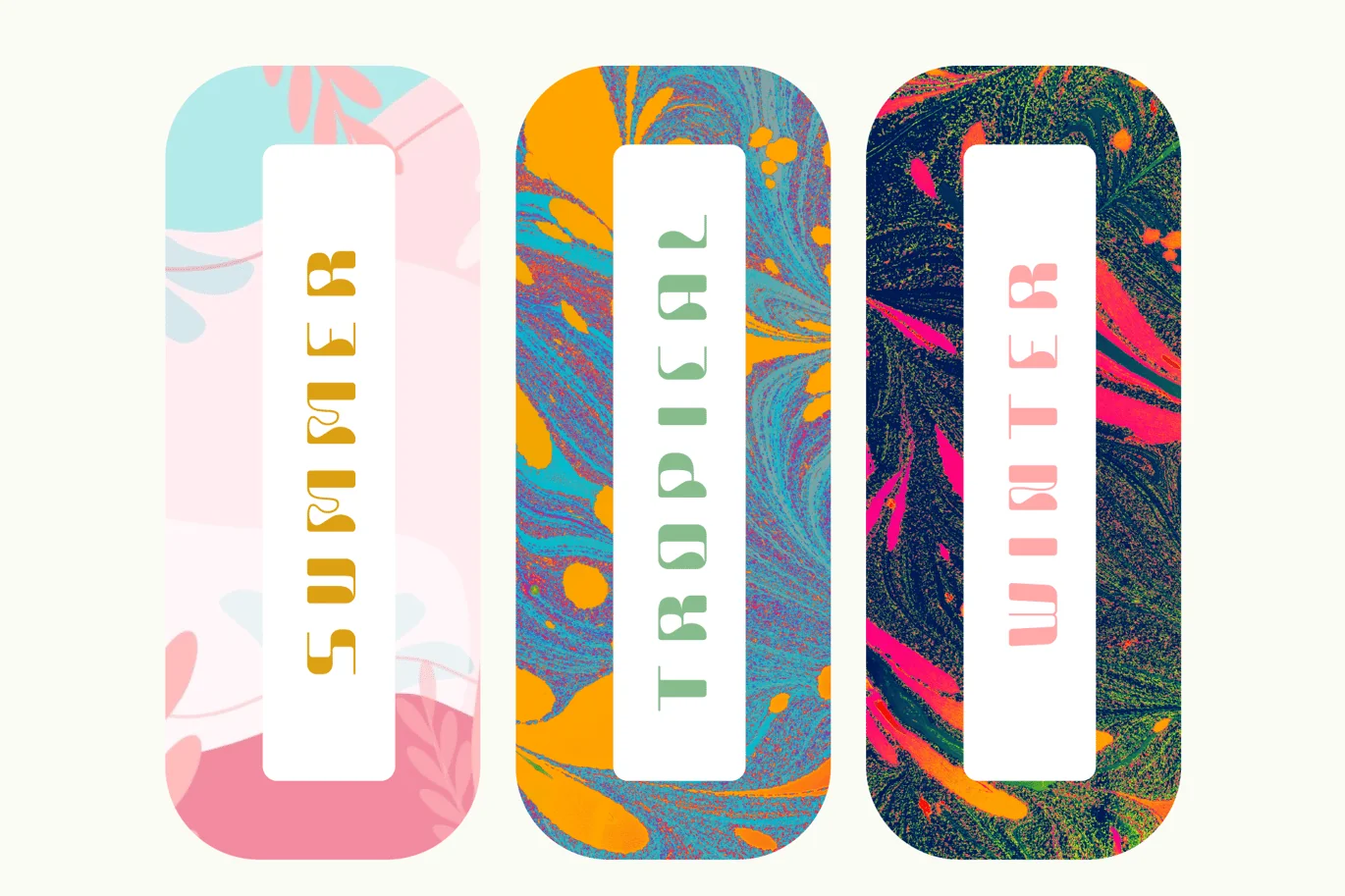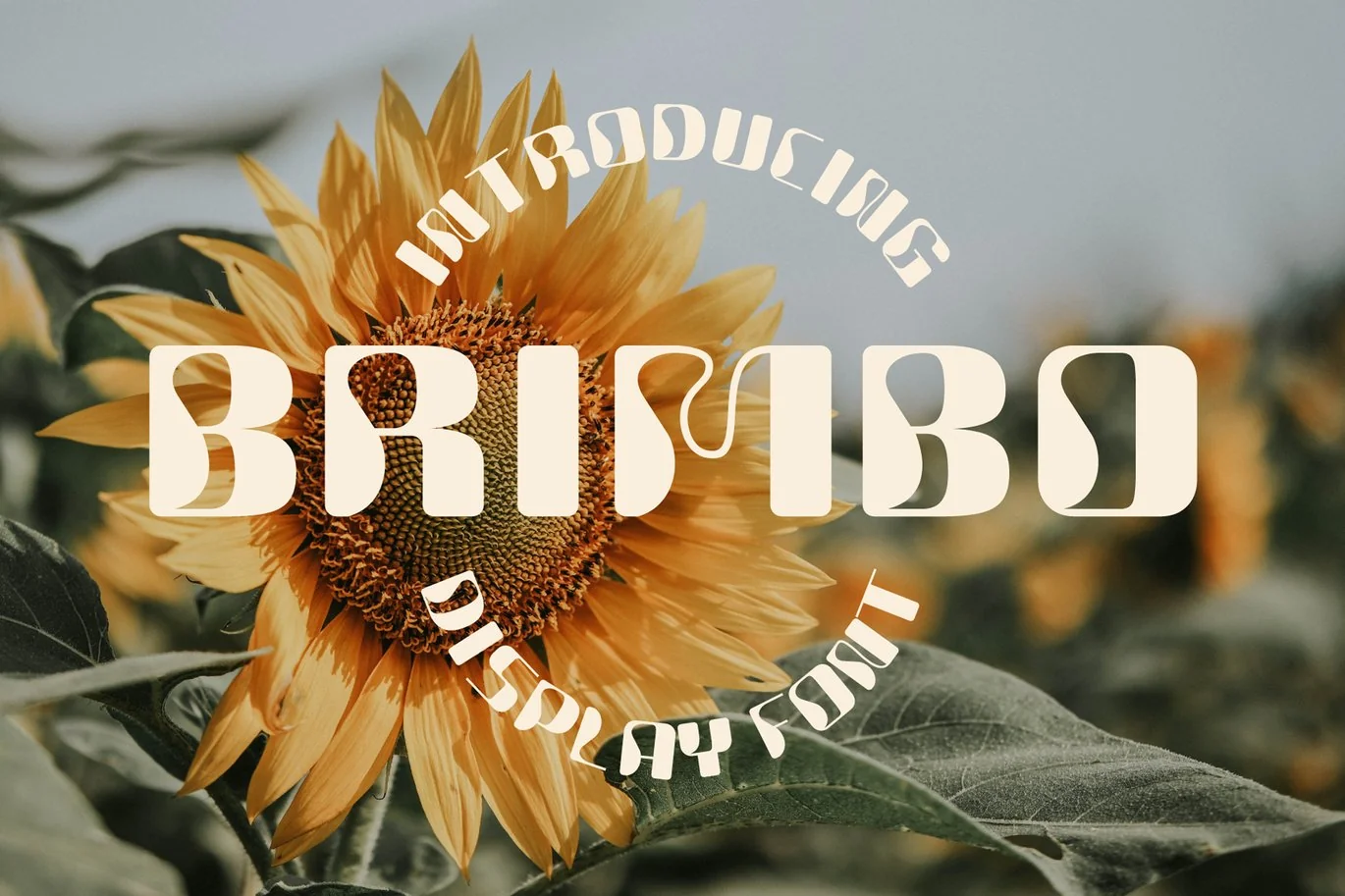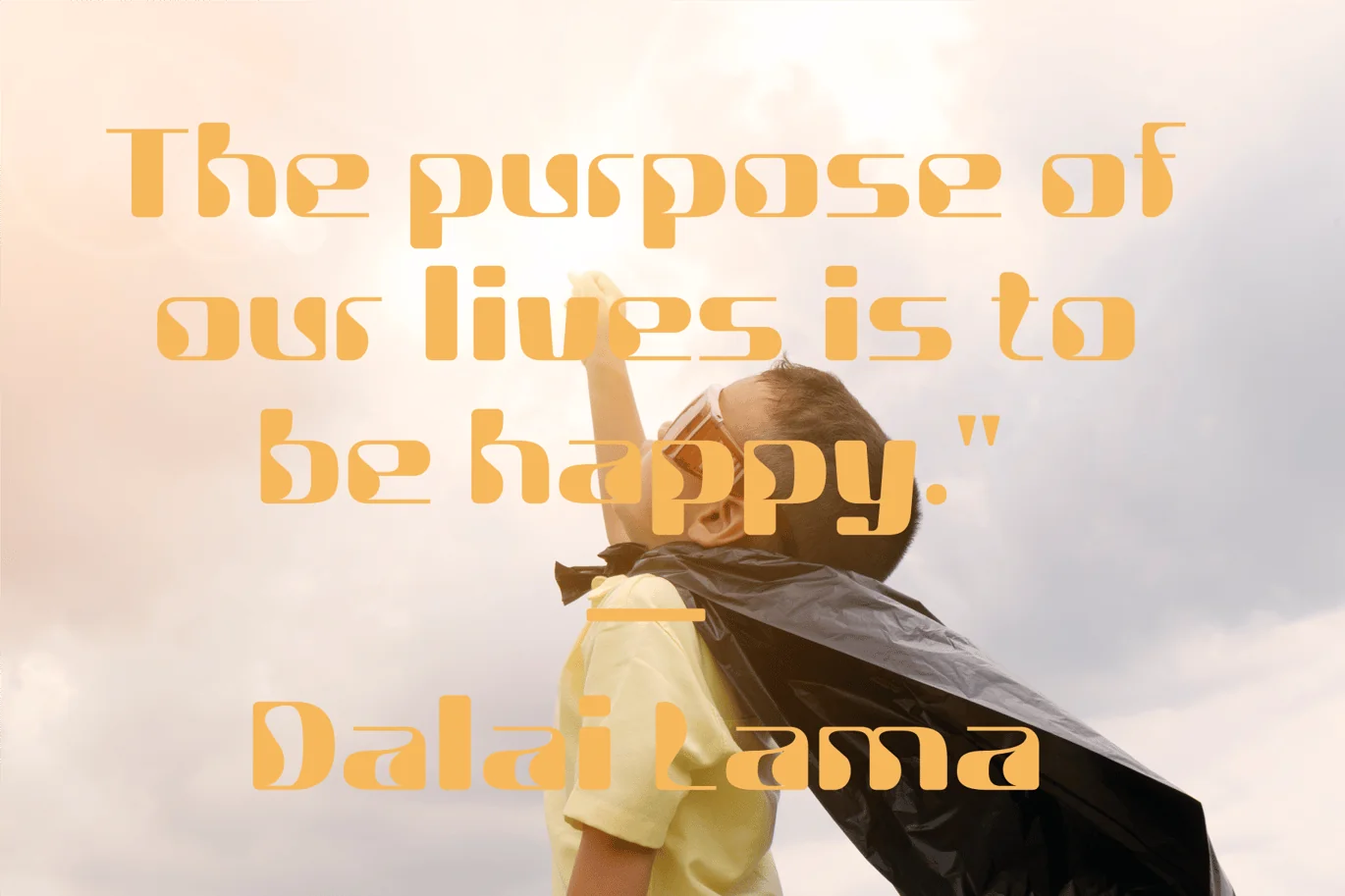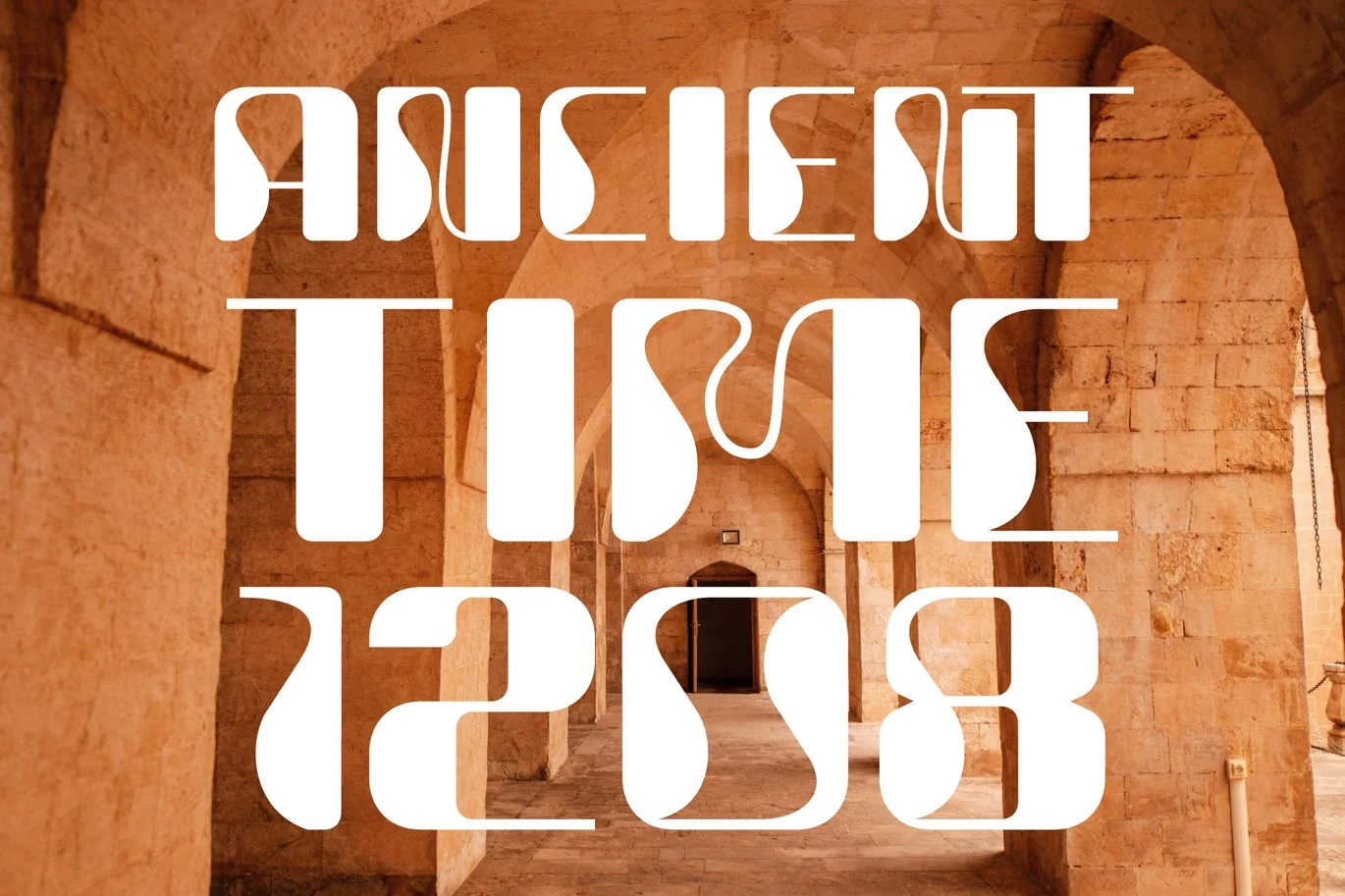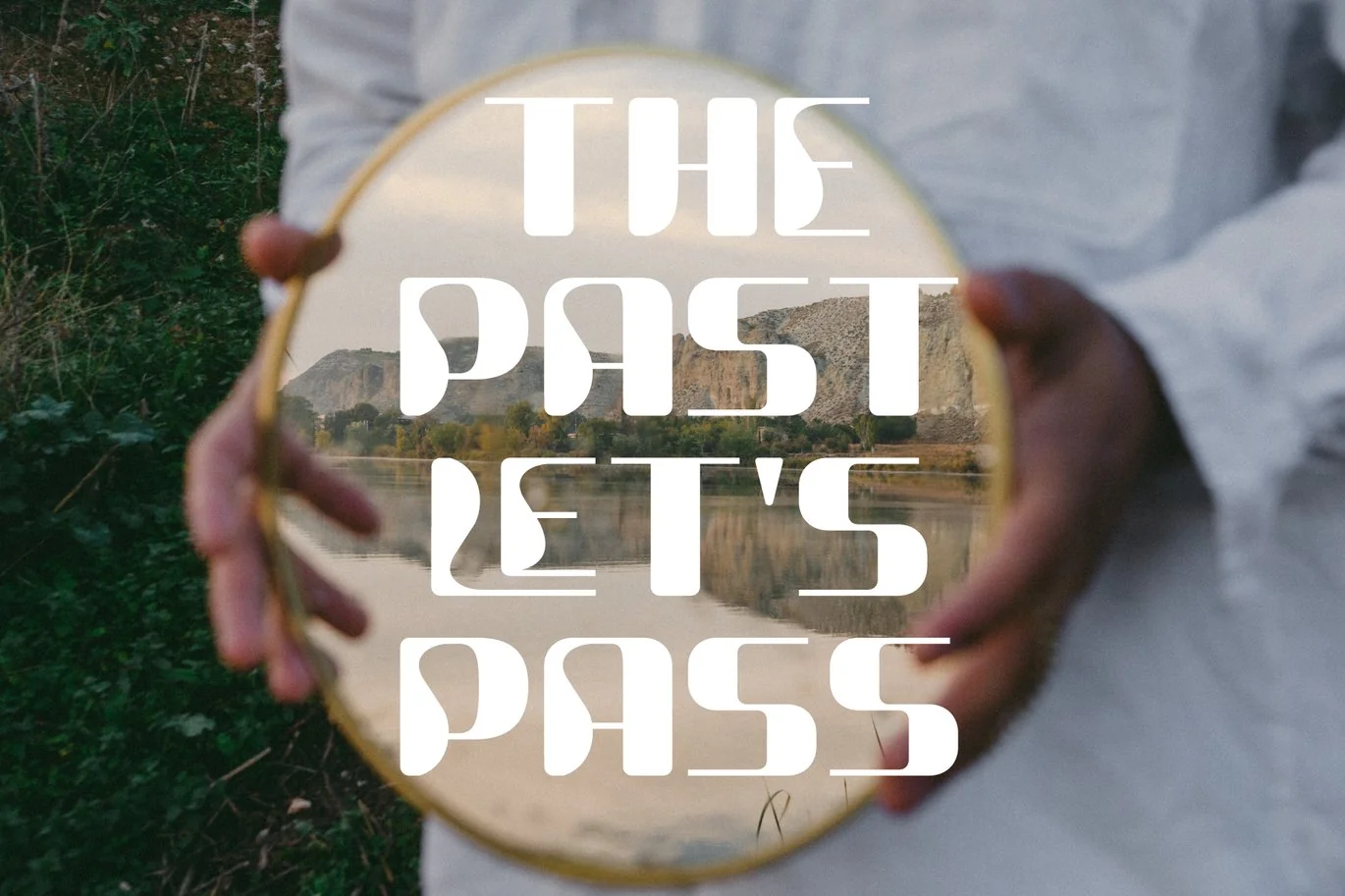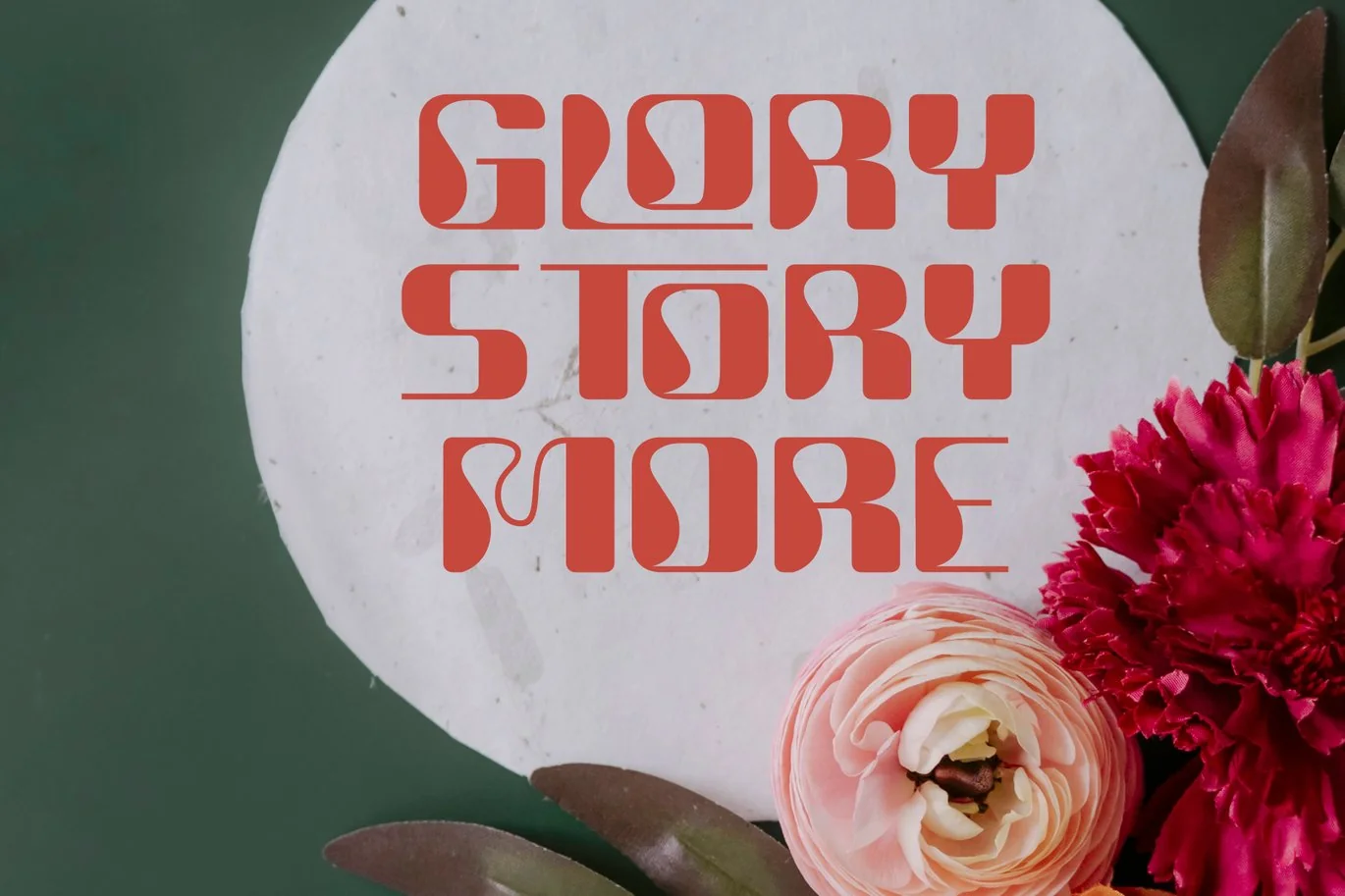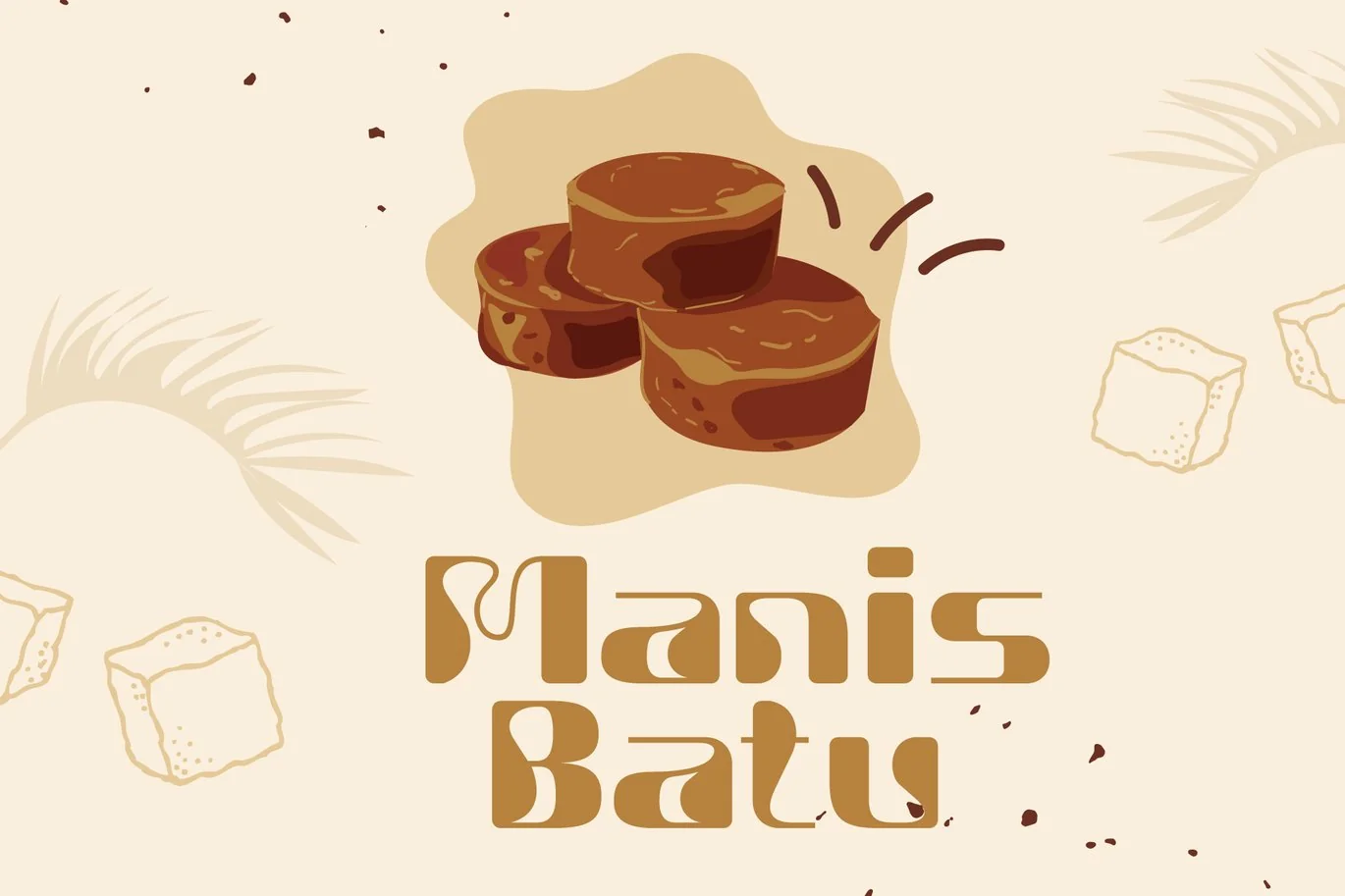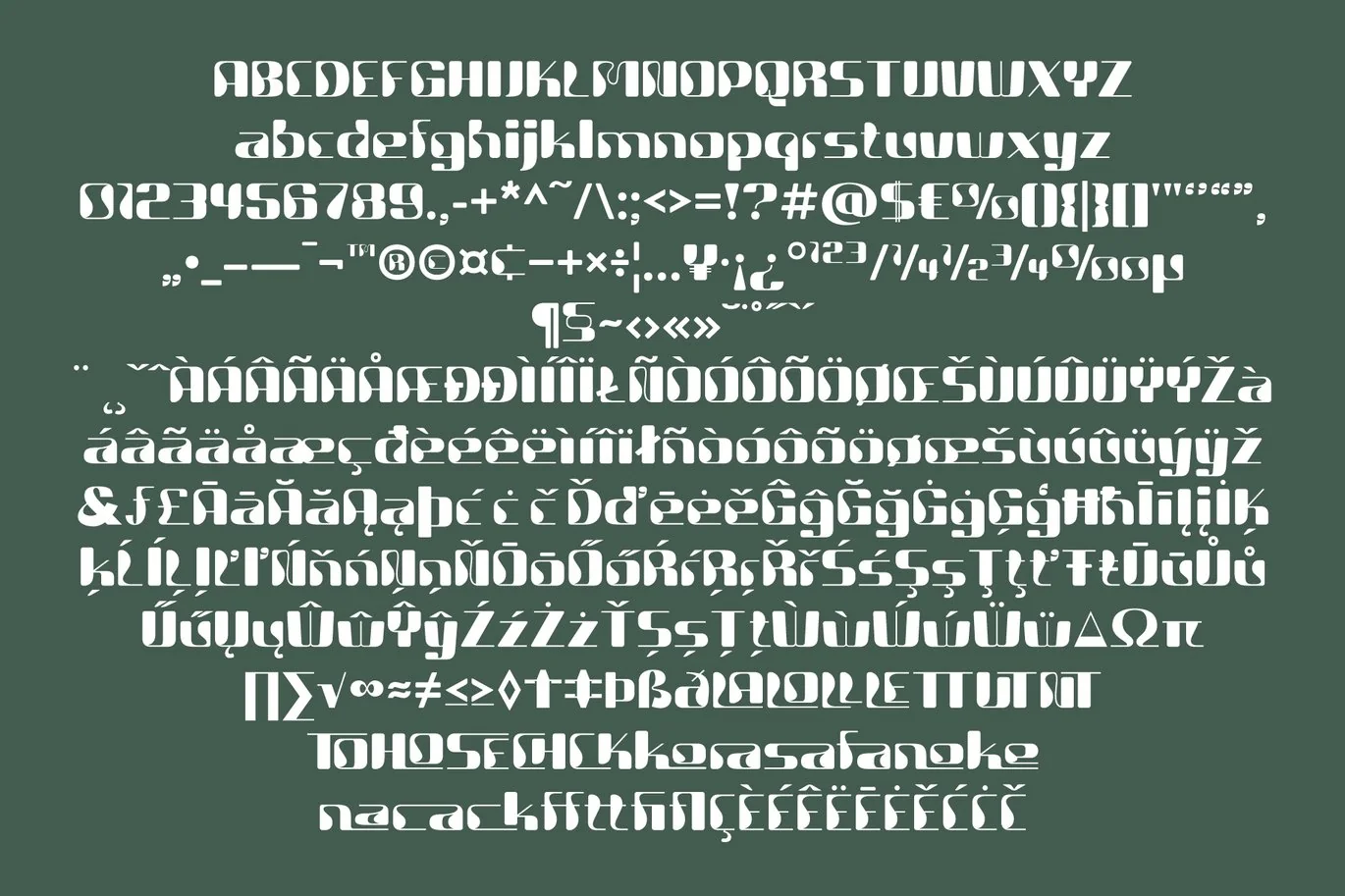
Brimbo – Modern Display Font
Brimbo – Modern Display Font cool bold font for your modern designs. He is funny and wonderful with a brave personality. Perfect for a headline, logo, or anything your creativity calls for.
- Standard glyphs uppercase and lowercase letters
- Numerals, a large range of punctuation
- Lowercase letters